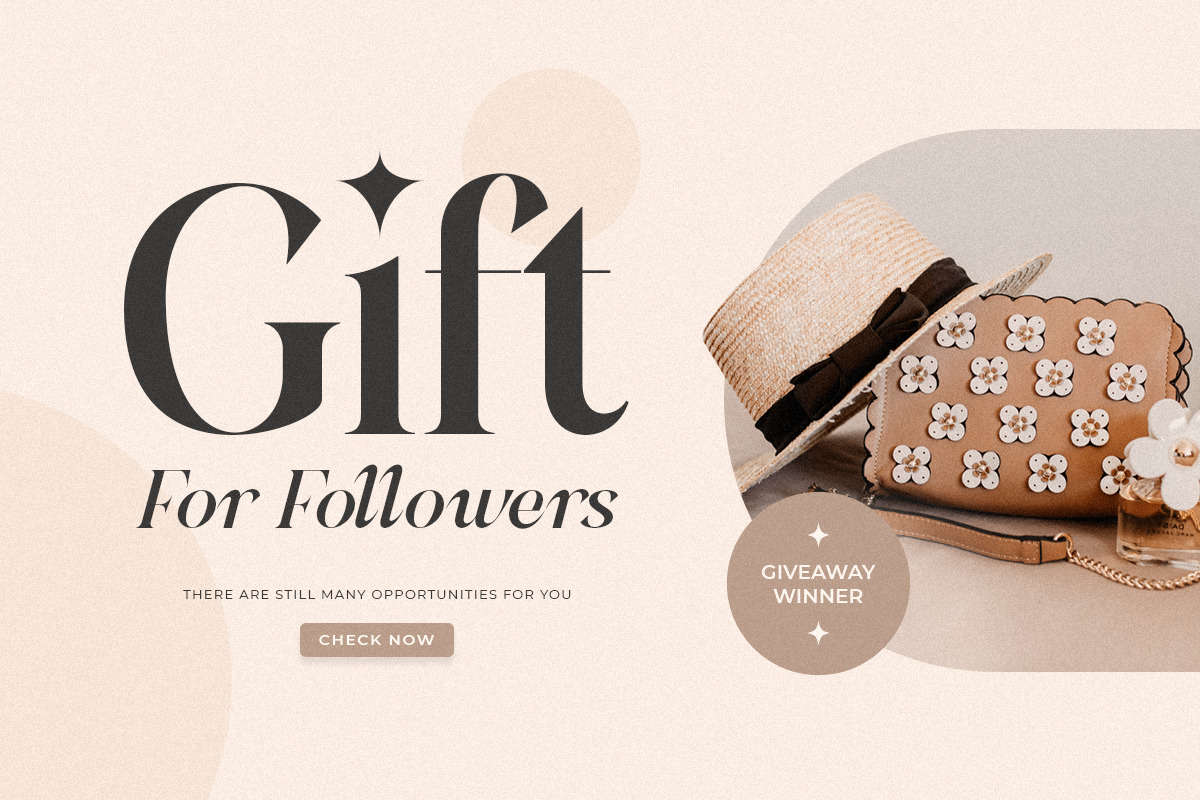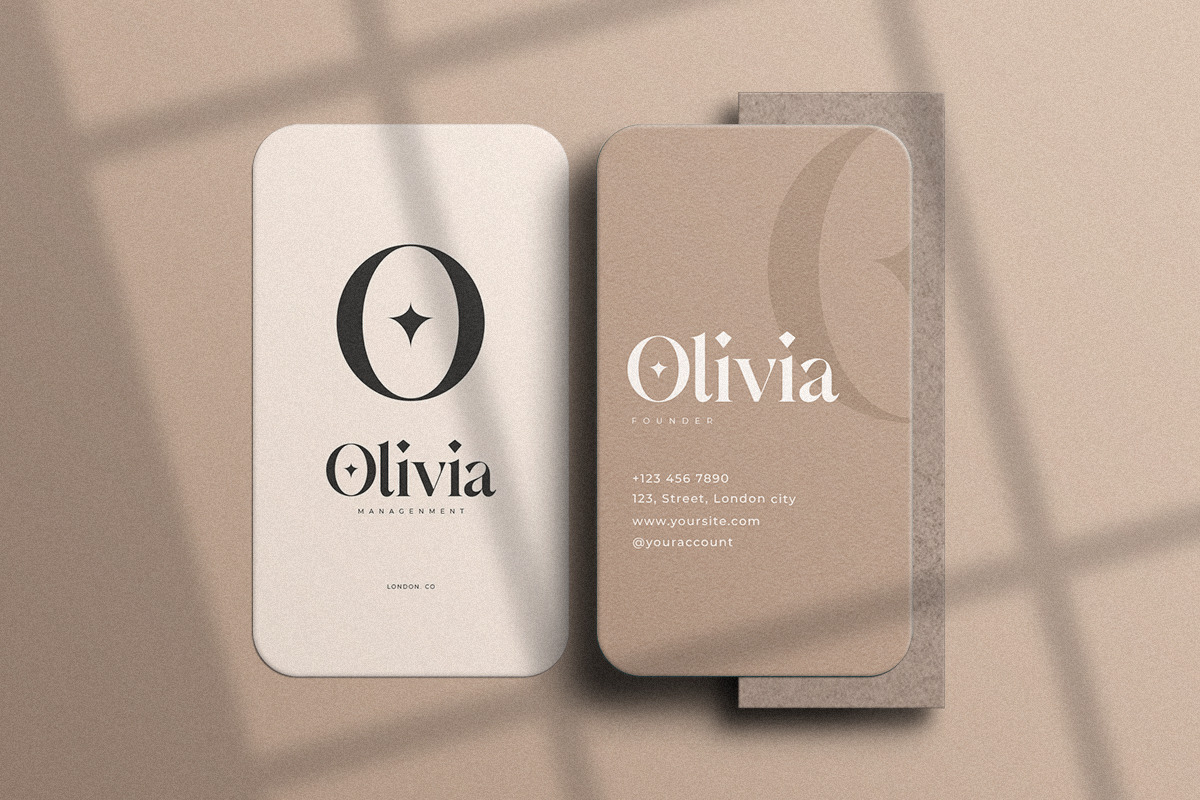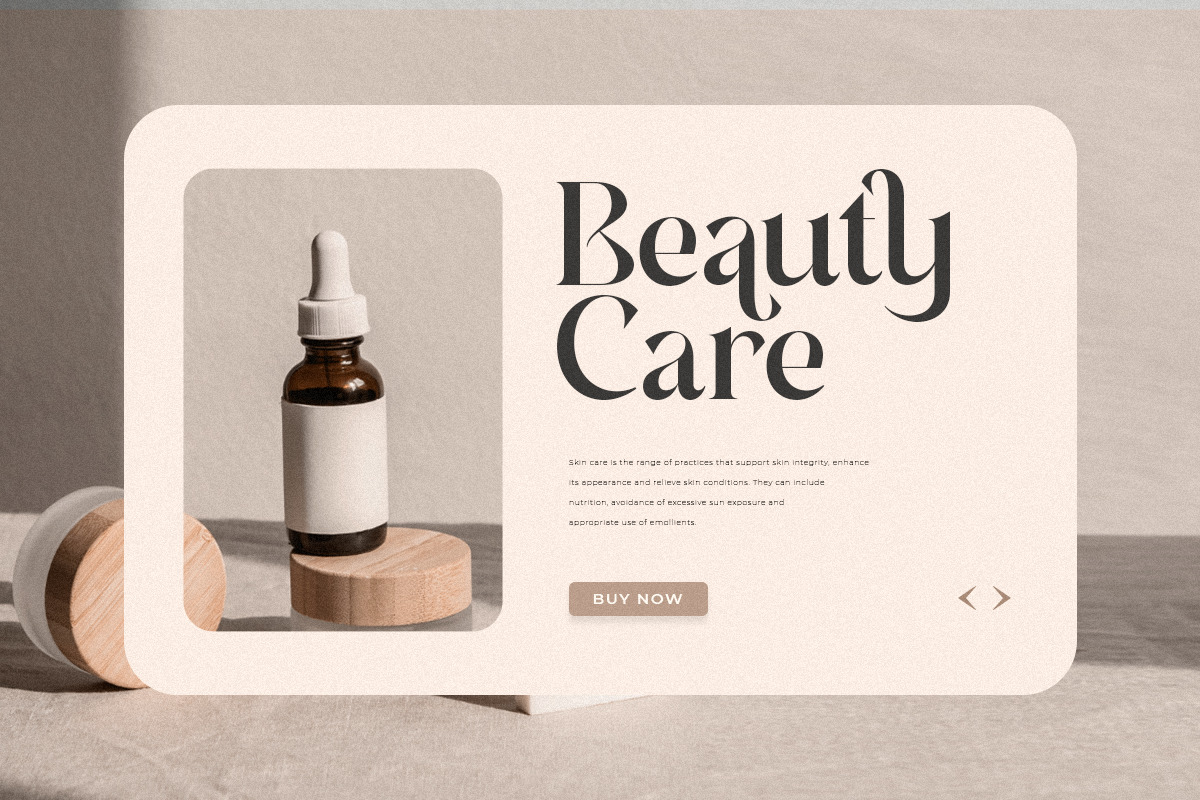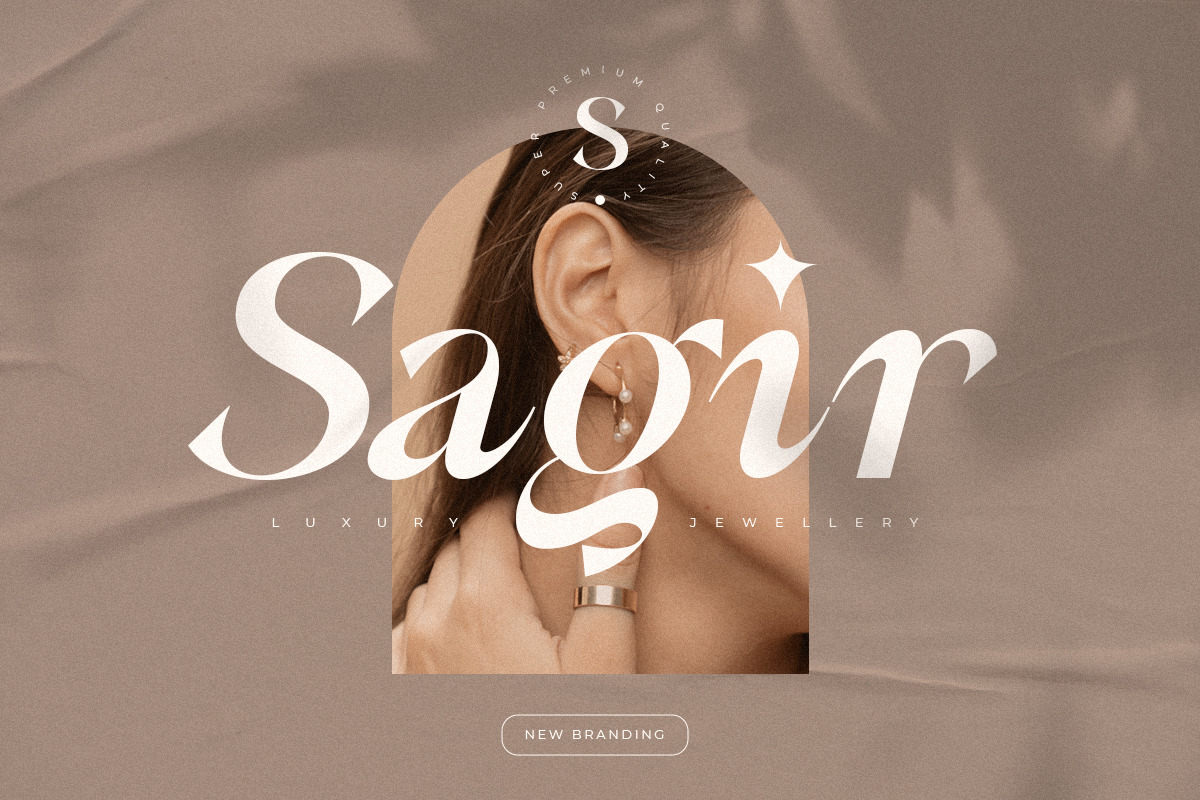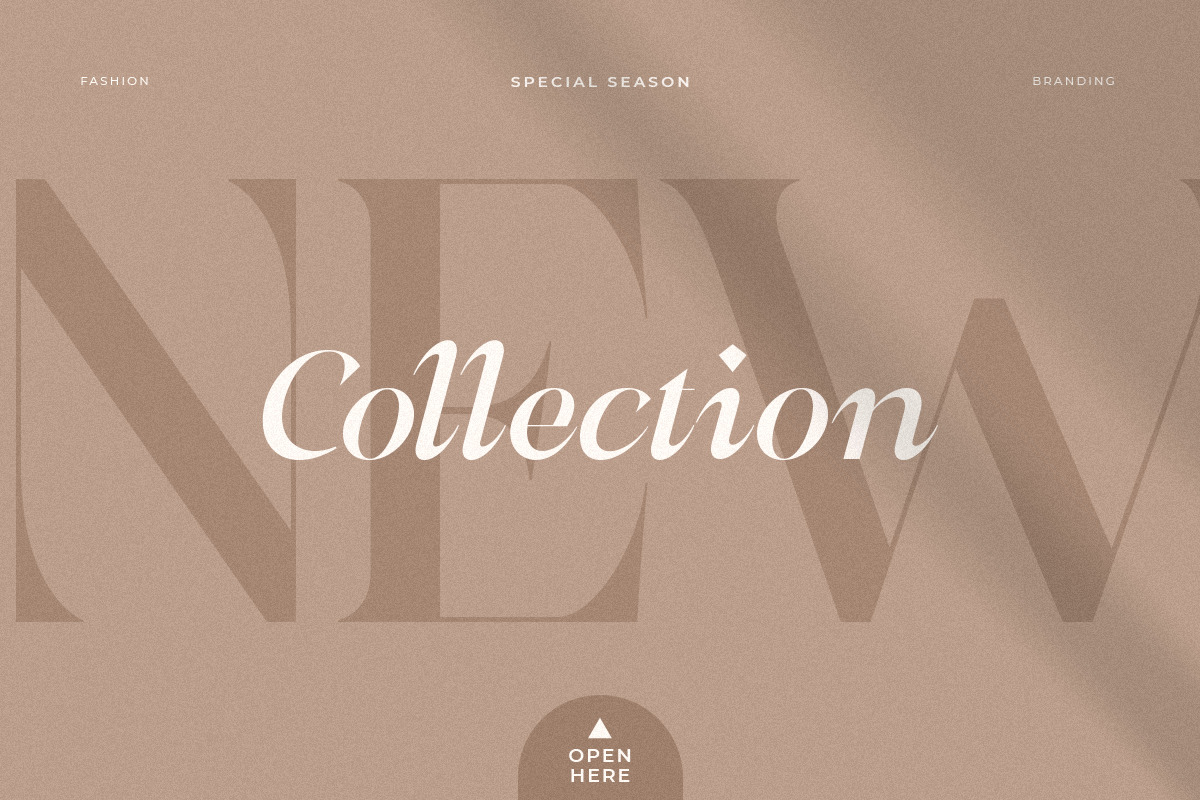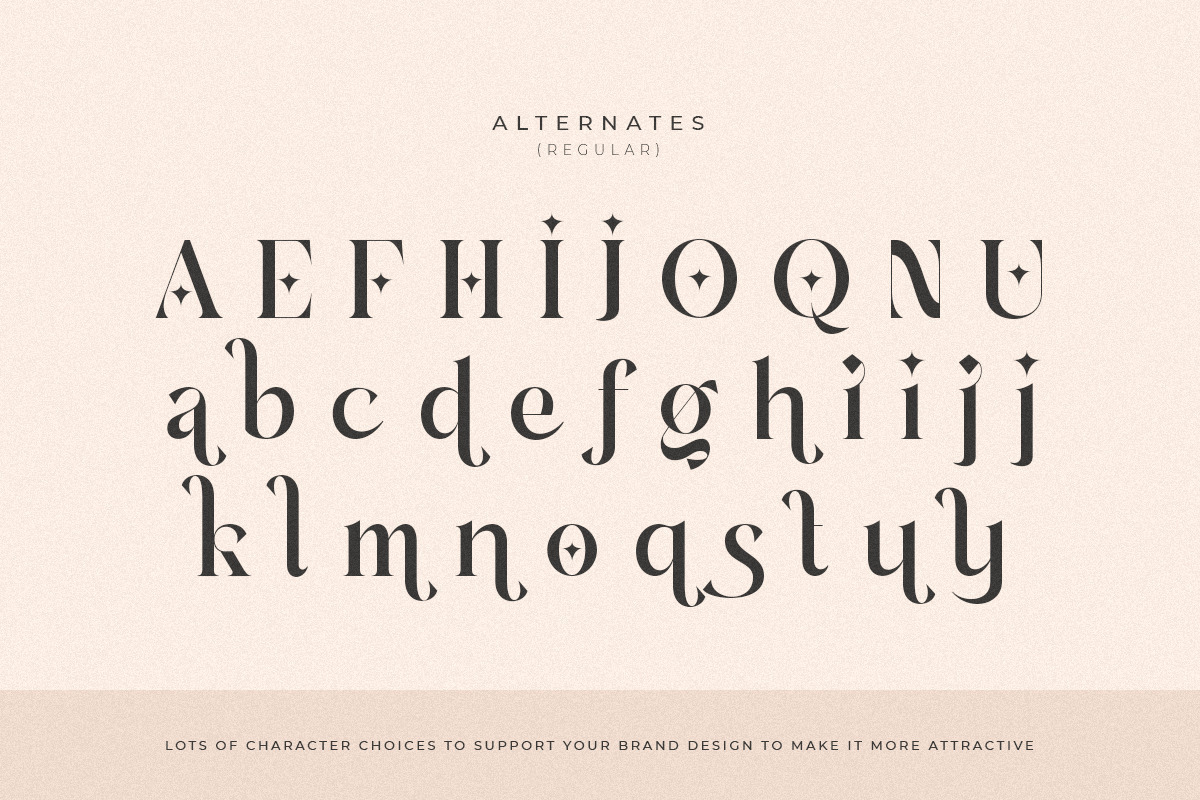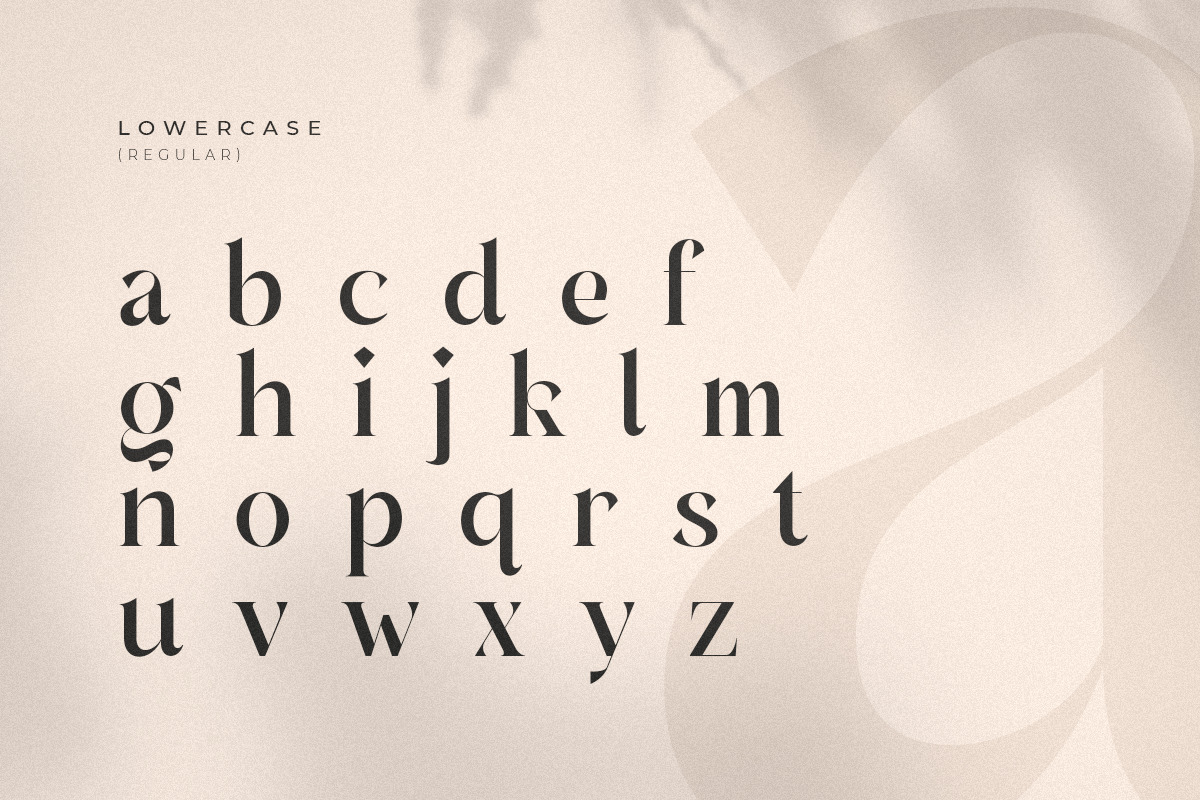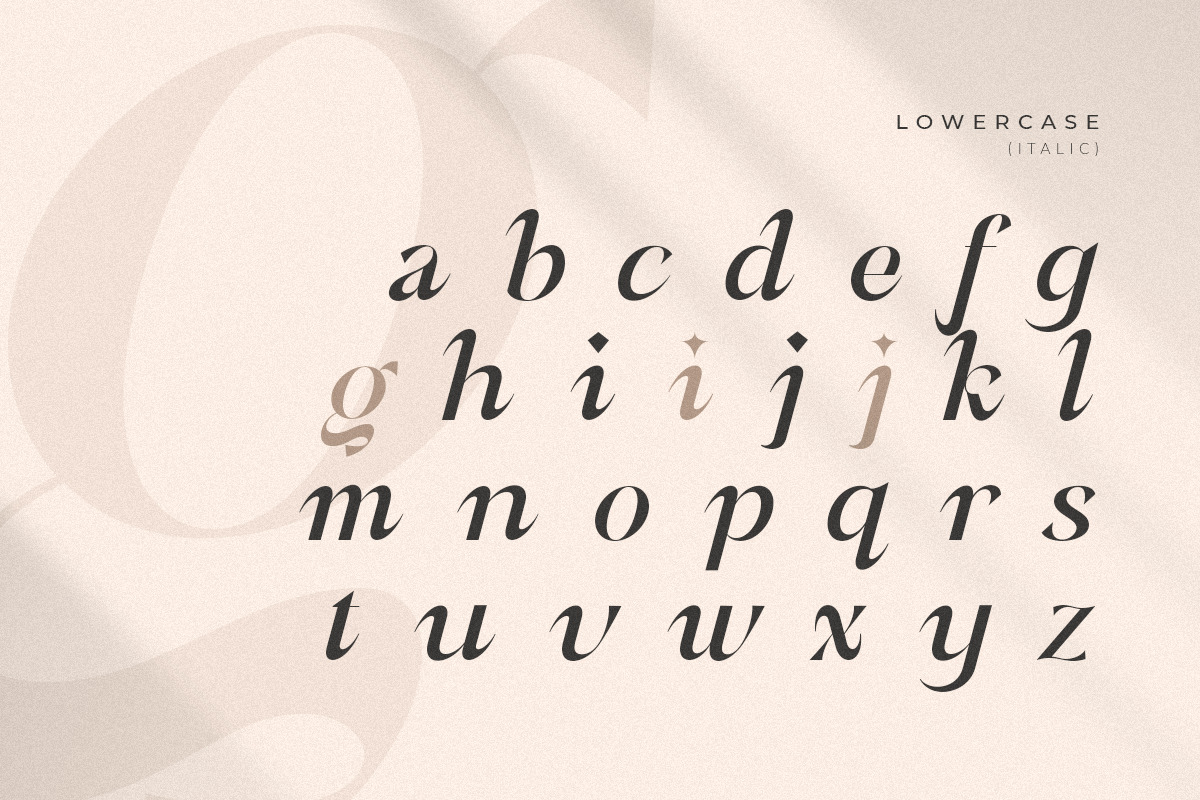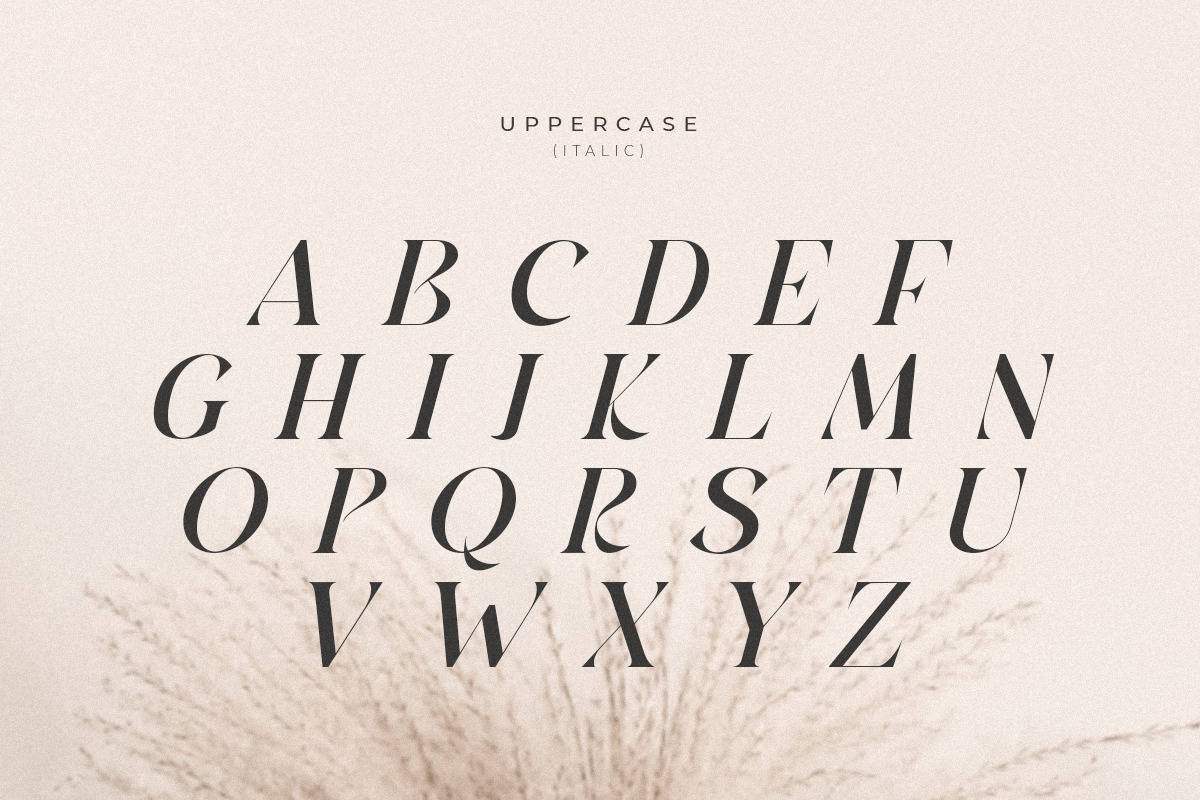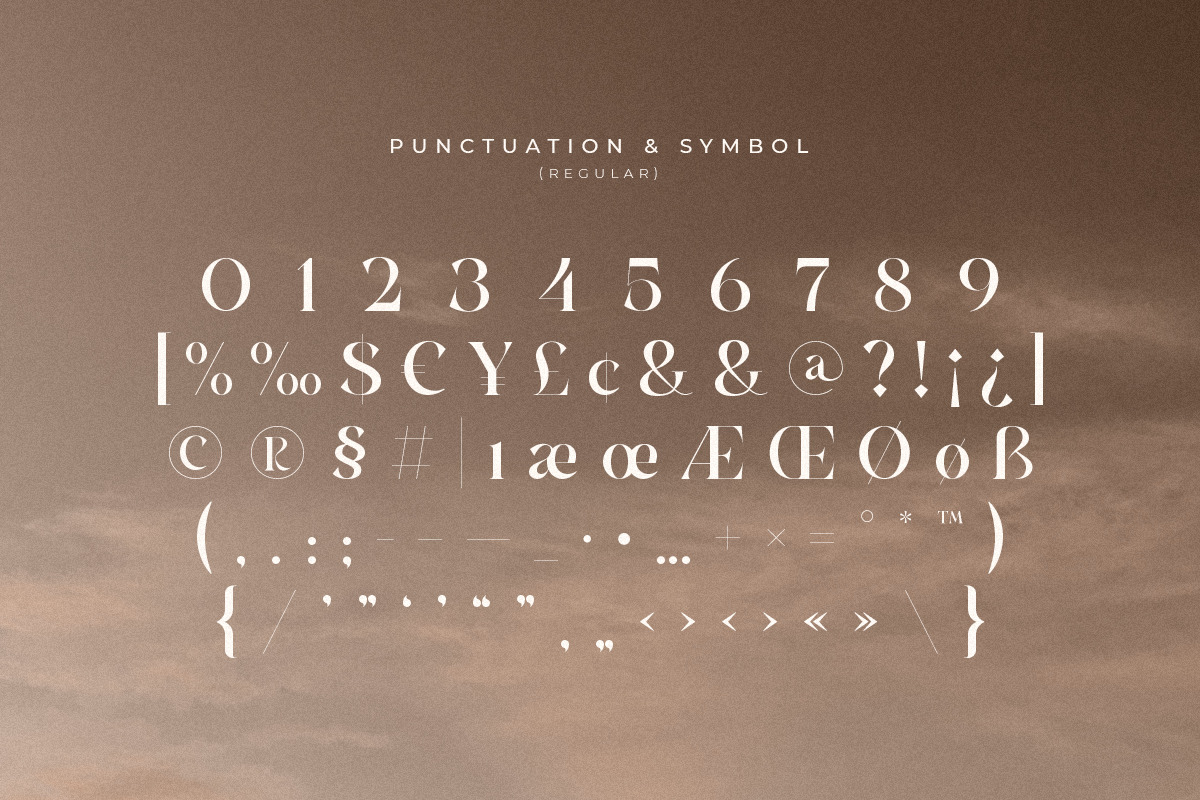
Barbeque - Modern Luxury Serif Font
Barbeque is Modern Luxury Serif Font is a well-balanced contemporary font with a fancy, unique, and versatile Luxury serif, font that you can combine to get any variations and unique shapes easily just in seconds with choose alternates of them. It is a serif display font with moderate contrast that perfect for branding projects, logo, wedding designs, social media posts, advertisements, product packaging, product designs, label, photography, watermark, invitation, stationery, and any projects, it makes with a high level of legibility.
- Character set A-Z
- Normal & Italic Style
- Numerals & Punctuation
- Accented Characters (West Europe)
- Stylistic alternates